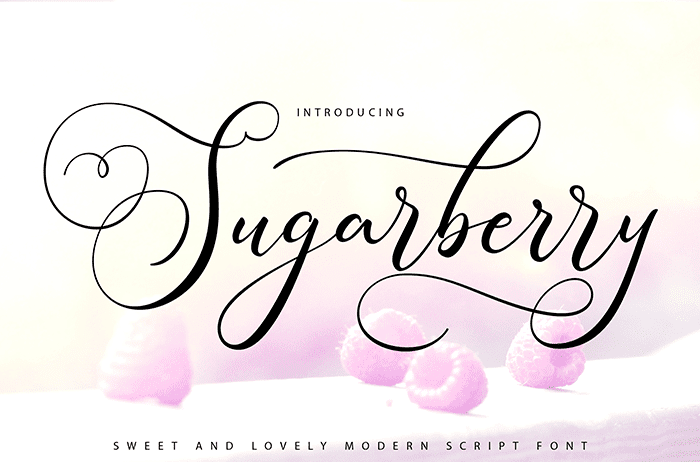
Sugarberry Script Font
Sugarberry is a beautiful and unique script font. Perfect to use for logo, letterhead, poster, apparel design, label and etc. Thanks to Vunira for sharing this font. Take a look at this portfolio for more of his stunning fonts.